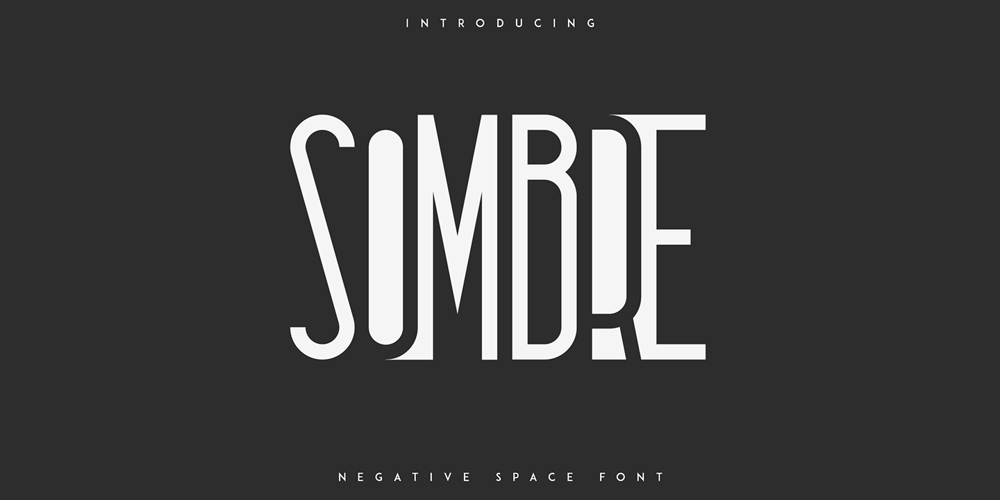
Sombre
Sombre font
Sombre Font Family was designed by Vladimir Fedotov, Plamen Petrov and published by VP Creative Shop. Sombre contains 1 styles and family package options. Introducing Sombre – stretched negative space fontSombre is super easy to use and advanced skills are not neededSombre is stretched, innovative font loaded with ligatures and multilingual support. It’s a very versatile font that works great in large and small sizes.Sombre is perfect for branding projects, home-ware designs, product packaging, magazine headers – or simply as a stylish text overlay to any background image. Uppercase, numeral, punctuation & Symbol Innovative Alternates Ligatures Multilingual support Feel free to contact me if you have any questions!Mock ups and backgrounds used are not included.Thank you! Enjoy!